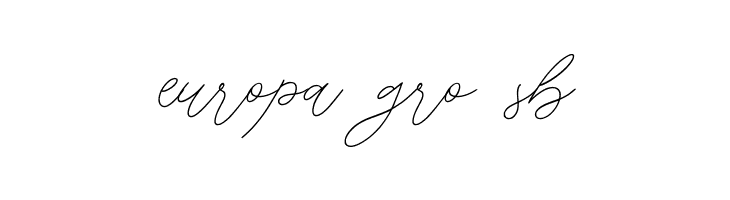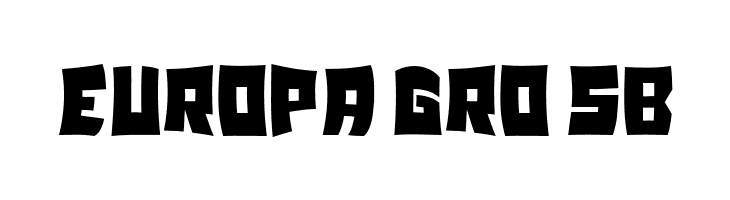
A bold, decorative font with a shadow effect and intricate details.
A lively and flowing script font with elegant, playful characteristics.
A dynamic and playful script font with a handwritten style.
A dynamic and elegant script font with fluid, connected letterforms.
A bold, textured font with a handcrafted, artistic style.
A modern, geometric font with clean lines and consistent stroke width.
A playful, bold script font with a handwritten style.
A modern, interconnected font with geometric lines and a bold presence.
A bold, elegant script font with flowing, cursive letterforms.
A bold, flowing script font with elegant curves and a modern calligraphic style.
A bold, decorative serif font with high contrast and vintage-modern appeal.
An elegant and flowing script font with graceful curves and sophisticated flair.
A quirky, illustrated display font using prize-themed icons as characters.
A playful, handwritten font with dynamic, fluid characters and a personal touch.
A playful, handwritten font with smooth, rounded edges and a casual style.
A playful, mask-themed decorative font with cartoonish illustrations.
An elegant script font with intricate swashes and a classic calligraphic style.
A bold, hand-drawn font with a rugged, brush-like texture.
A bold, chaotic decorative font with jagged, organic textures.
Abstract and artistic representations resembling faces within diamond shapes.
A bold, thorny, and aggressive decorative font.
A thorny, aggressive decorative font with sharp, jagged edges.
Illustrative, face-themed decorative display font.
A playful and artistic font featuring characters with facial features.
A bold, circular, and geometric decorative font with a modern flair.
Playful, hand-drawn font made of expressive cartoon faces.
Hand-drawn, abstract face and figure font with a playful, artistic style.
An artistic font with characters resembling abstract facial elements.
Hand-drawn dingbat font with cartoon facial features and heads.
A playful, bold handwritten font with smooth curves and consistent height.
A decorative font featuring whimsical, mask-like characters with intricate designs.
A modern, geometric font with consistent stroke width and balanced characters.